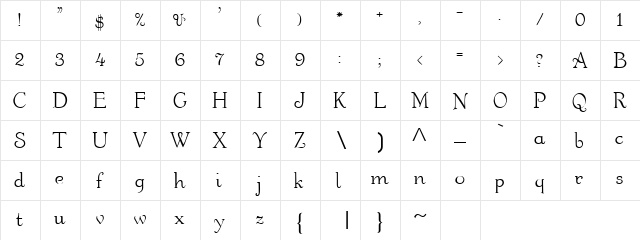
BENTLEY Regular
Design Context for BENTLEY Typeface
BENTLEY is a composed and adaptable typeface that performs quietly and consistently across a wide range of design contexts.